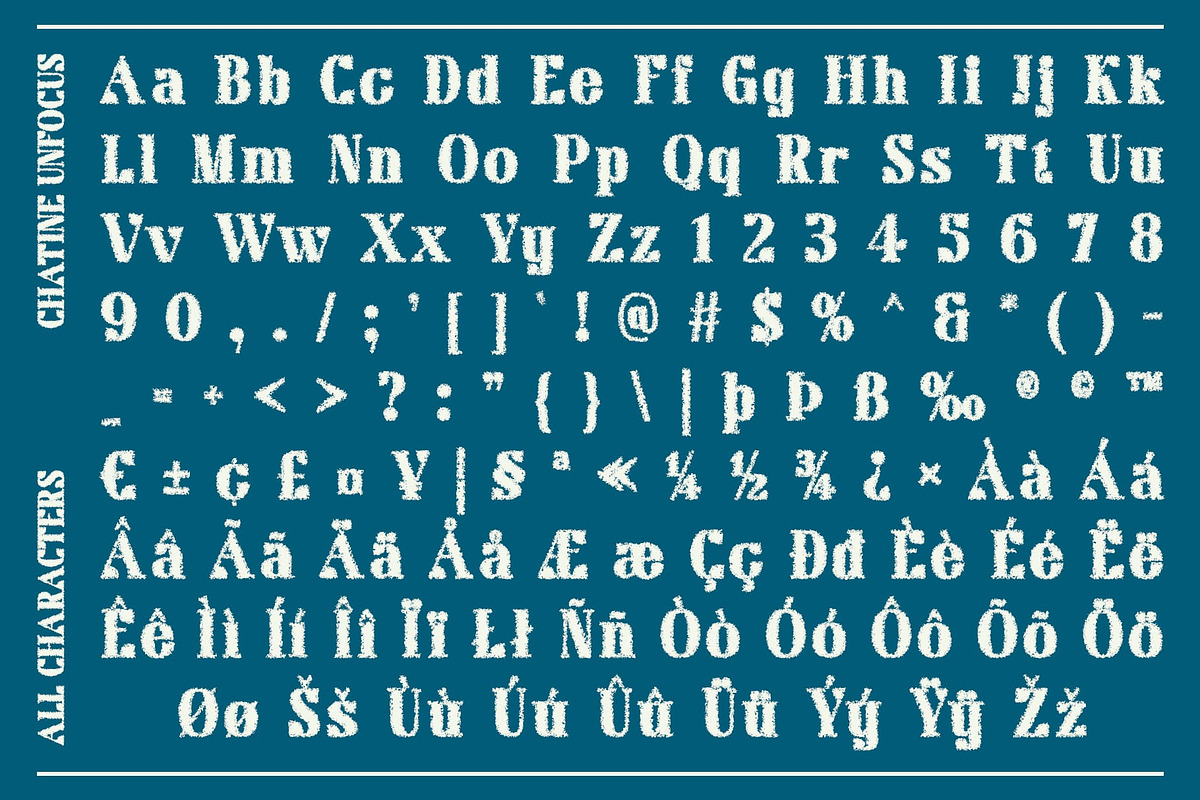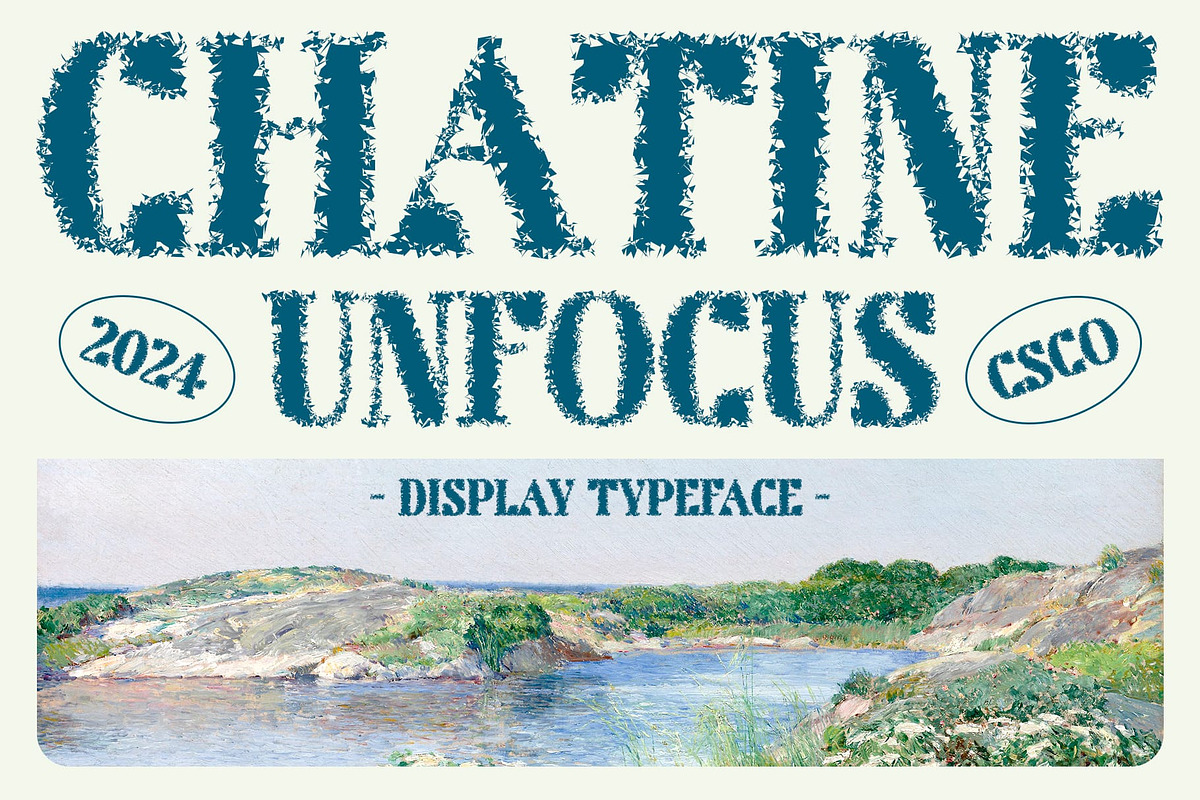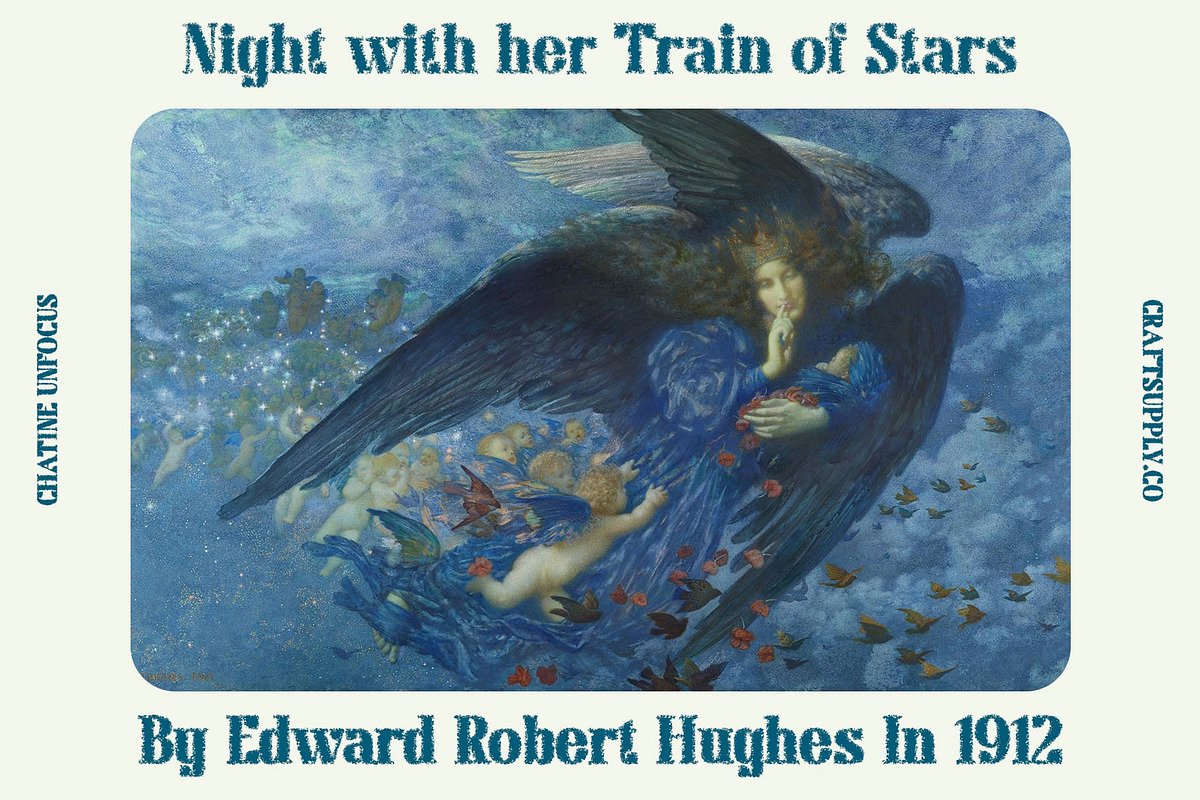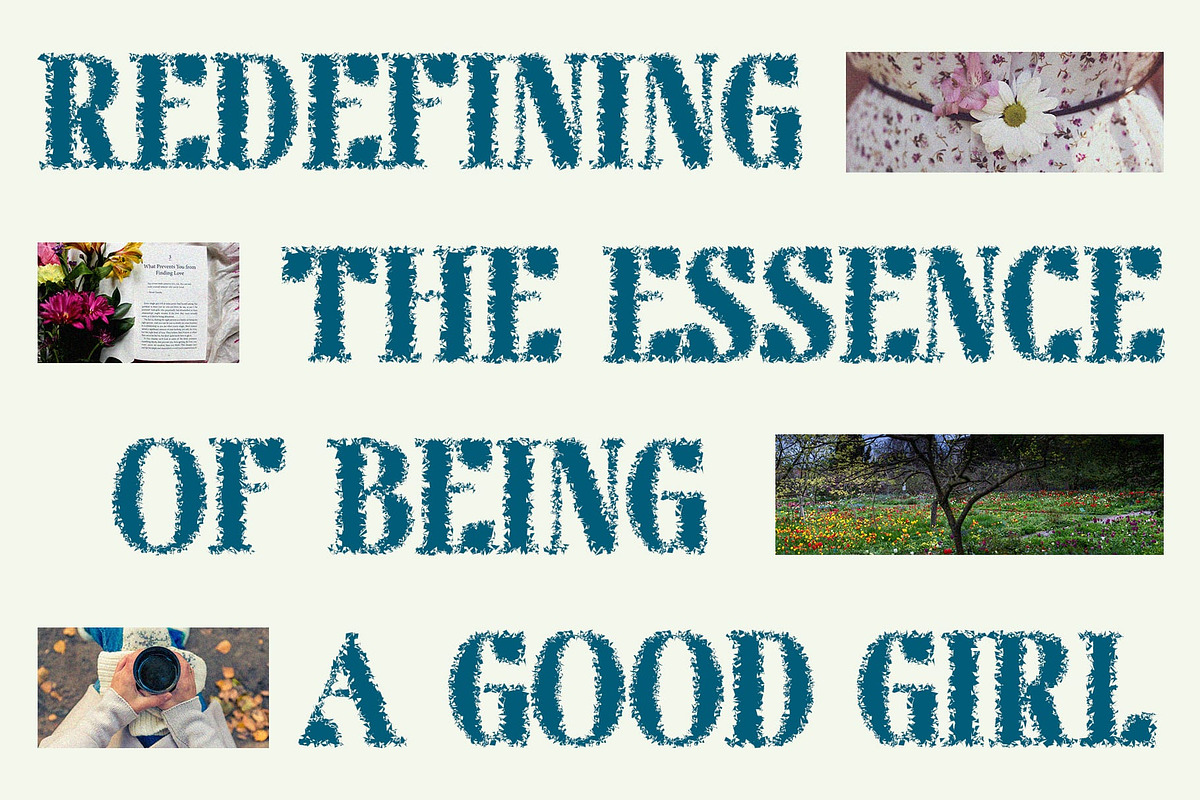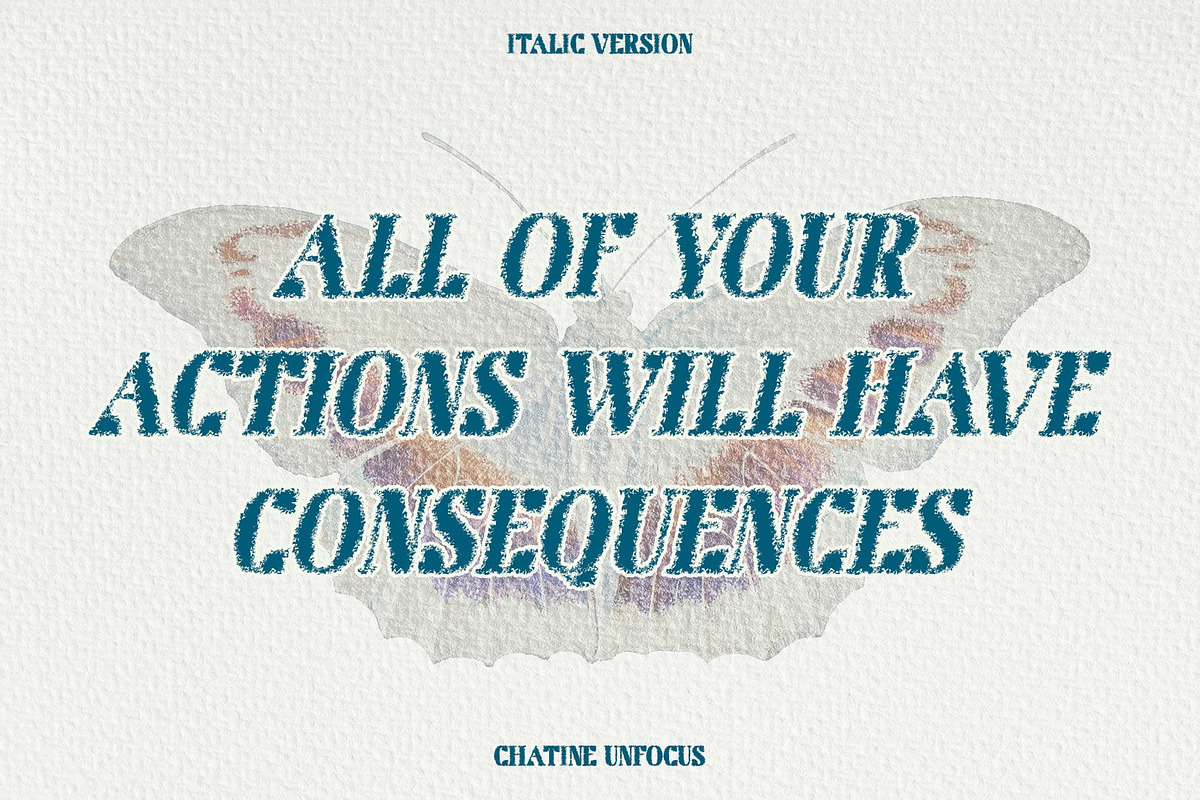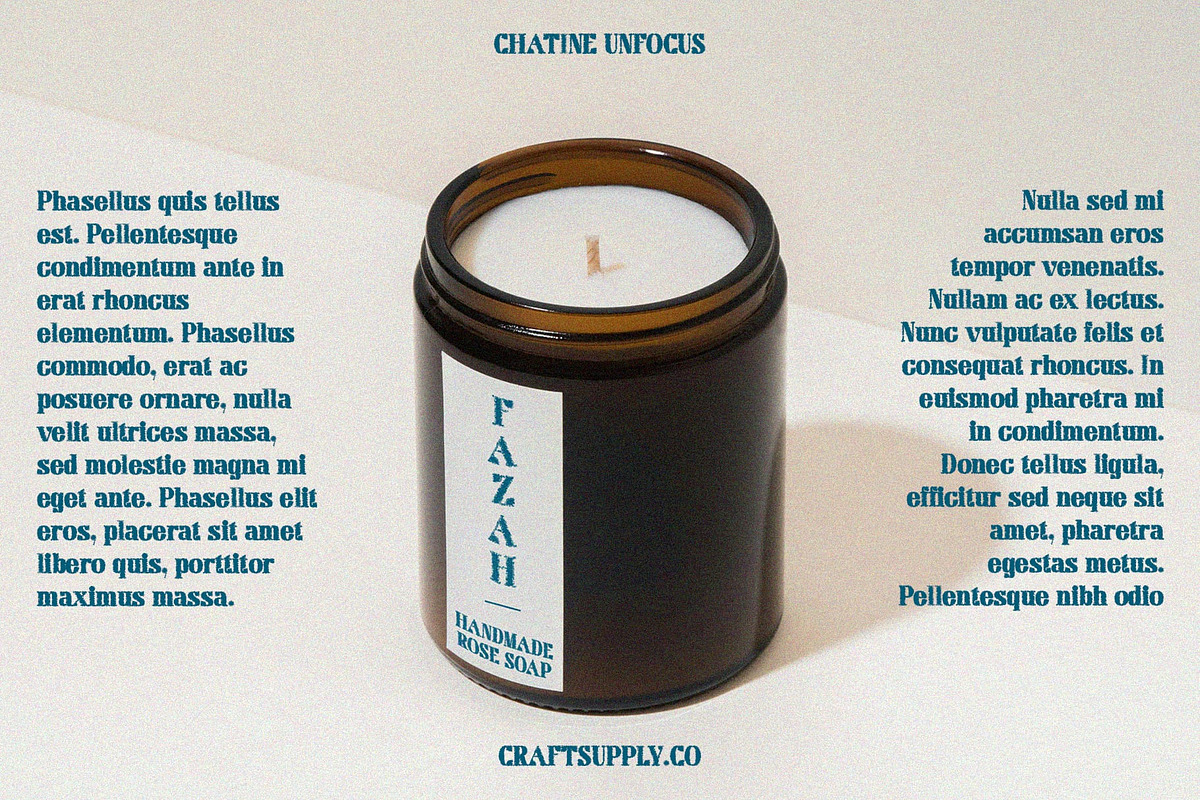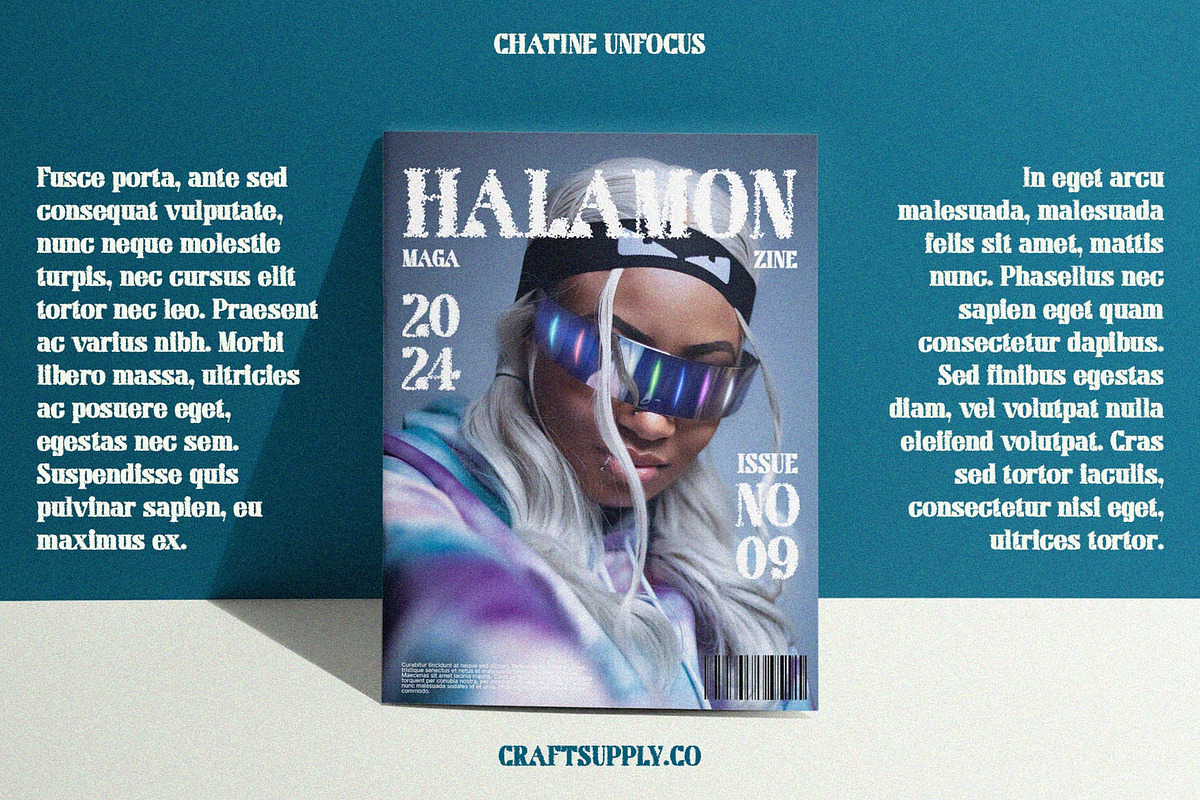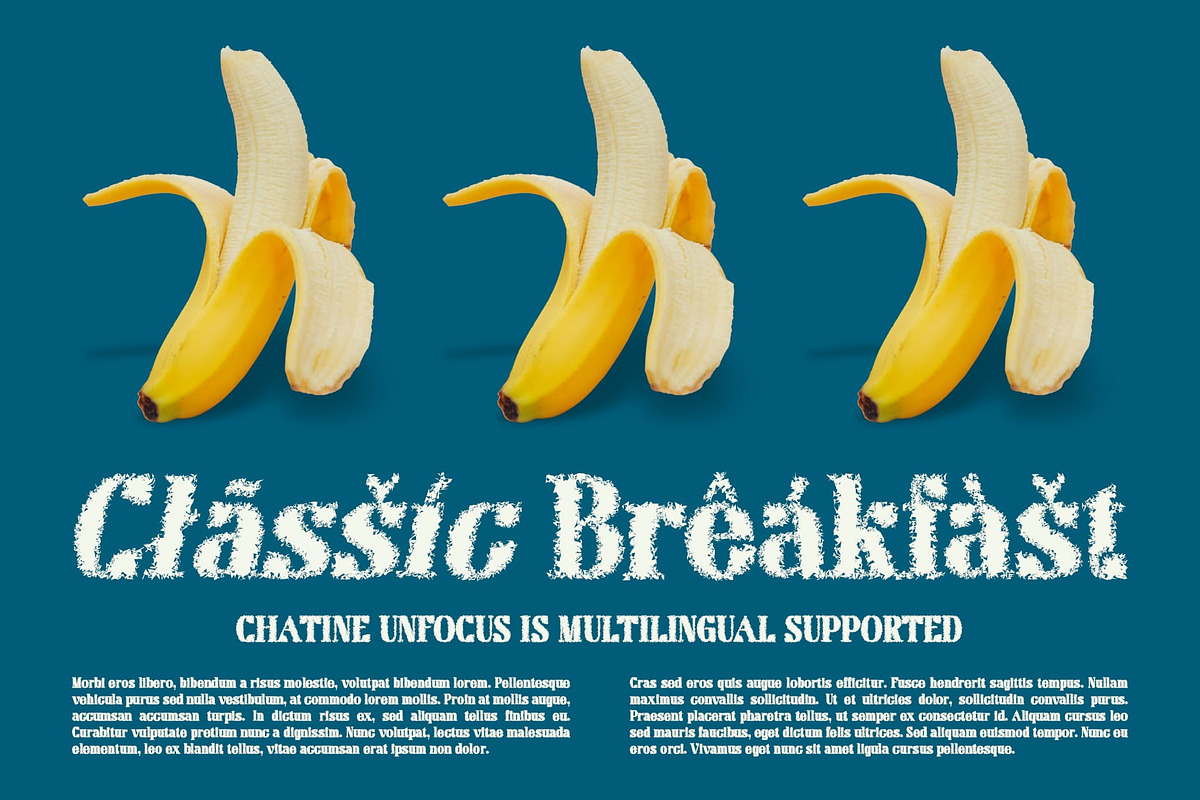
Chatine Unfocus
Chatine Unfocus: Ball Terminal Serif Font with a Dreamy Twist
Classic Charm Meets Subtle Dreaminess Discover Chatine Unfocus, a ball terminal serif font with an unfocused effect that combines classic charm with a subtle, dreamy aesthetic. This unique font is ideal for adding elegance and sophistication to your designs.
Perfect for Elegant and Vintage-Inspired Designs Chatine Unfocus excels in creating a refined and timeless look, making it perfect for elegant branding, vintage-inspired designs, and sophisticated print materials. Its beautifully crafted serifs and soft blur effect bring a sense of grace and nostalgia to your visual projects.
Timeless Yet Contemporary Appeal This font offers a unique blend of refined serifs and a soft blur effect, providing a timeless yet contemporary appeal. Chatine Unfocus adds depth and character to your designs, making them stand out with a subtle, artistic touch.
Enhance Your Visual Projects Choose Chatine Unfocus to elevate your visual projects with its elegant and dreamy aesthetic. Whether used in branding, editorial layouts, or invitations, this font brings a unique and captivating charm, perfect for those seeking a blend of classic and contemporary style.
- Chatine Unfocus Regular
- Chatine Unfocus Italic